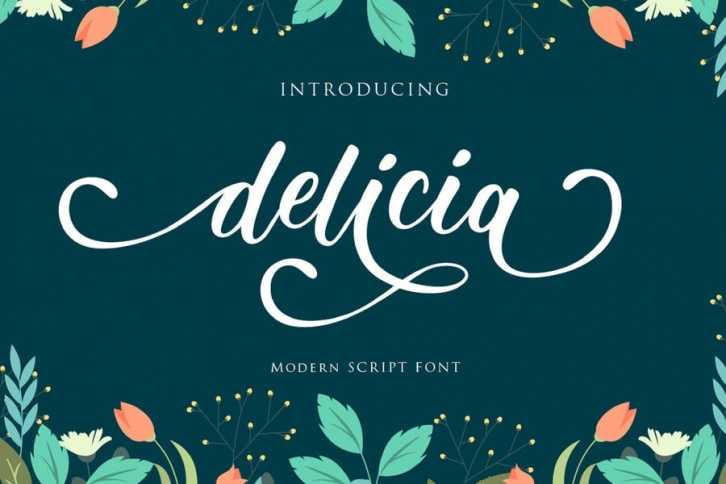
The "Delicia" is a stylish feminine font. It includes amazing swashes which will add a feminine touch to your designs.
Numeral and Punctuation
53 Swashes
International Language